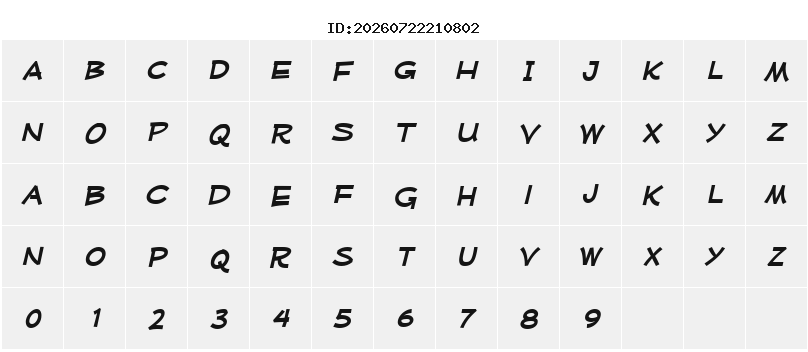
Mufferaw Xp Preview
• Font Name: Mufferaw Xp
• Full Font Name: Mufferaw Xp Bold Italic
• Designer: Ray Larabie
About Mufferaw Xp.ttf
Mufferaw Xp.ttf is a modern, elegant sans-serif font designed for ultimate readability and visual harmony. Perfect for branding, headlines, web design, and print materials.